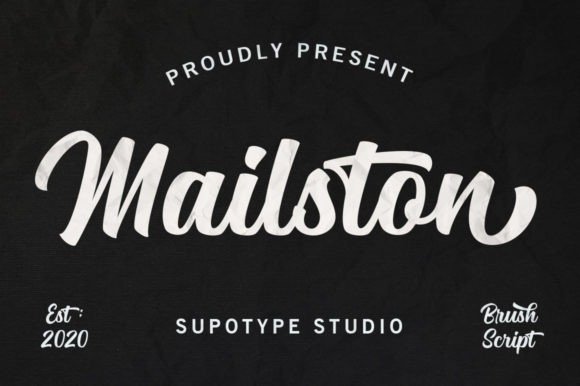
Mailston Font
Mailston Script Font is a vintage-themed script typeface created by supotype with a cute feel. It comes with ligatures and alternates. You can combine it to make a perfect beautiful calligraphy design. Use it to add a nostalgic vibe to any design project!
The unique flow and easy calligraphy style makes it perfect for wedding design, blogging, social media, branding, invitation, gretting cards or simply use it in your next design project.